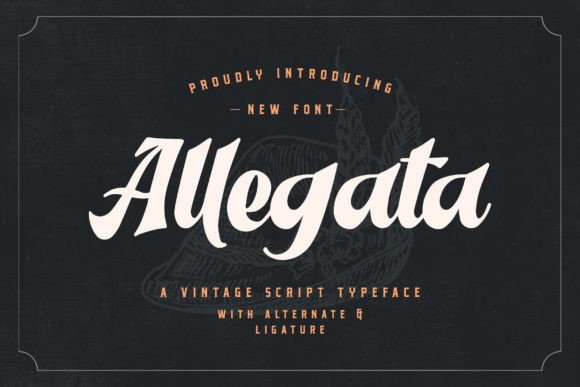
Feast your eyes on Allegata, the script font that oozes vintage charm and versatility like no other. Immerse yourself in its timeless beauty, handcrafted by TypeFactory, and discover a world of creative possibilities.
Allegata's captivating curves and elegant strokes dance across your designs, evoking a sense of nostalgia and romance. This font is an artist's dream, perfect for conjuring up wedding invitations that whisper sweet promises, restaurant branding that exudes warmth and sophistication, and retro stationary art that transports you to a bygone era.
Unleash your creativity with Allegata and craft eye-catching social media posts that demand attention. Design labels and logos that speak volumes about your brand's unique personality. Create web designs that captivate visitors with their charm and elegance. Transform quotes into works of art, posters that inspire and captivate, and workshop materials that leave a lasting impression.
With Allegata as your artistic companion, you'll embark on a creative journey like never before. Its versatility knows no bounds, allowing you to explore a myriad of styles and projects. Whether you're a seasoned designer or just starting your creative adventure, Allegata is the key to unlocking your true potential.
So, dive into the world of Allegata and let your imagination run wild. Discover the endless possibilities that await you, from heartfelt wedding invitations to captivating social media posts. Let Allegata be your muse, your guiding light in the realm of design.
Step into a world of timeless beauty and endless creativity with Allegata. Embrace its vintage charm and versatility, and watch your designs flourish with a touch of magic.